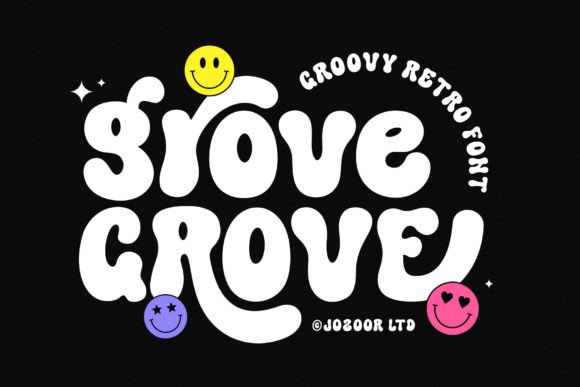
Introducing Grove Font, the perfect combination of groovy, retro, boho, and fun all rolled into one. Created by Jozoor, this display font is a versatile addition to your font collection that can take your designs to the next level.
With its retro vibe, Grove Font is an excellent choice for those looking to add a touch of nostalgia to their designs. Whether you’re creating crafts, digital designs, presentations, or greeting cards, Grove Font is the perfect choice to make your creations stand out from the rest.
But that’s not all; Grove Font is also an excellent choice for creating eye-catching logos, branding, and quotes. Its unique design and playful style make it a perfect choice for those looking to inject some personality into their branding efforts.
By adding Grove Font to your most creative ideas, you’ll notice how it brings them to life. Its eye-catching appeal is sure to draw attention to your work and leave a lasting impression on your audience.
In conclusion, Grove Font is the ultimate choice for those looking to add a touch of fun and creativity to their designs. Its versatility and unique style make it the perfect addition to any font collection, so download Grove Font today and experience the groovy magic for yourself!